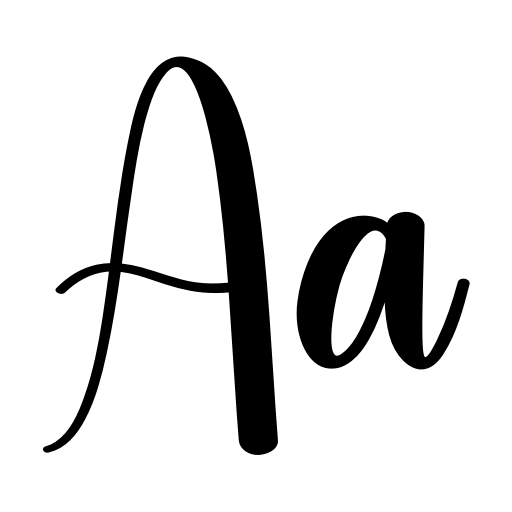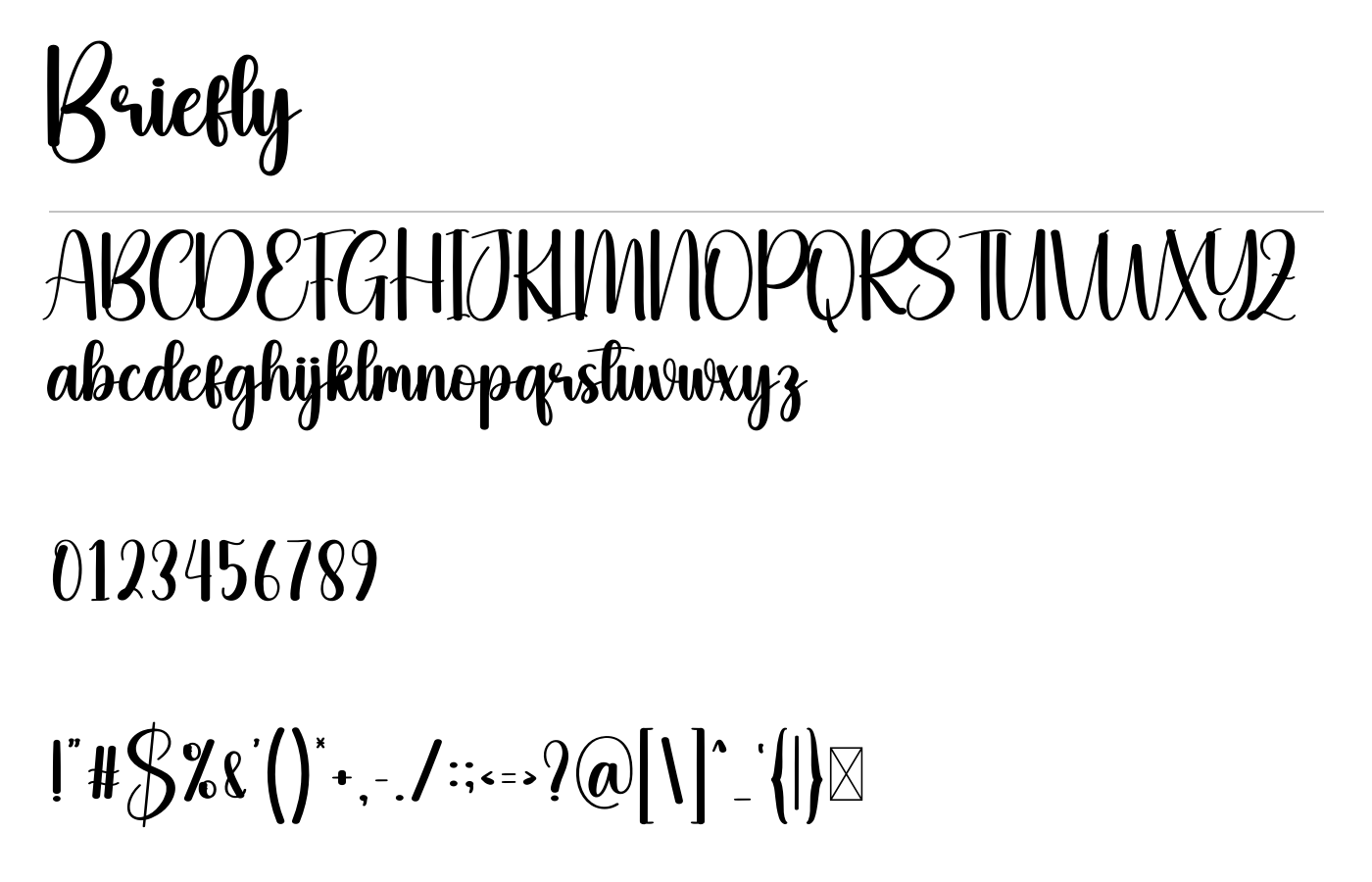
Briefly is a playful script font with a modern and friendly vibe, featuring smooth, flowing strokes and a lively bounce in its letterforms. Its mix of thin and thicker lines, along with distinctive, whimsical curves in both uppercase and lowercase, make it ideal for branding, invitations, and creative headlines where a personal, approachable feel is desired. This font stands out in projects seeking charm and elegance with a casual, handcrafted spirit.
Briefly Font